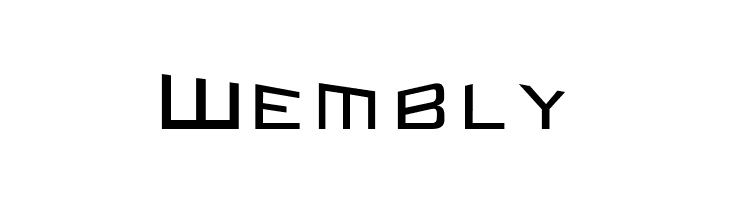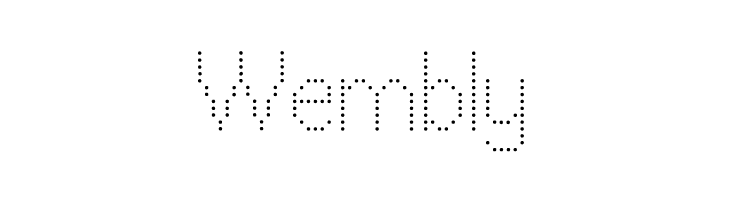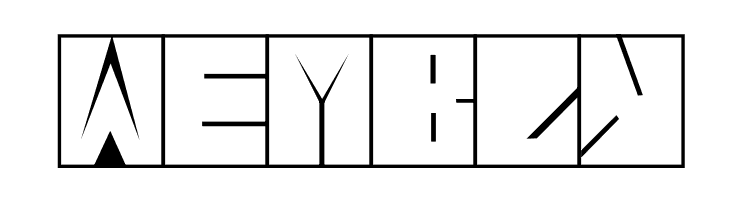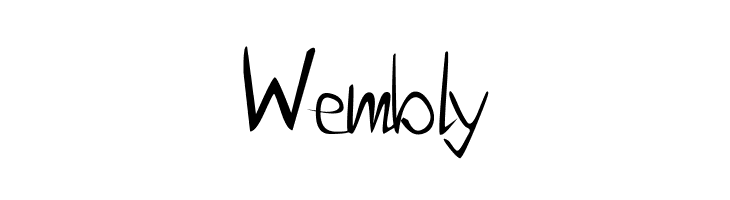
blzee Font
Font by Dennis van Schajik - www.zopp.nl
A bold, handwritten font with an energetic and casual style.
LL_Dot Font
A modern, dotted font with geometric precision and playful style.
Blaise Font
A geometric, angular font with a futuristic and mechanical style.
Blaise-1-1 Font
A geometric and abstract font with sharp angles and minimalistic strokes.
LLDot Font
Markus Schröppel - www.mschroeppel.de/
A modern, dotted font with a geometric and digital aesthetic.
Blaise Gothic Regular Font
A modern, angular font with a futuristic, tech-inspired design.
BlaiseHand 2.0 Font
4Logoz - formerly 4logoz.cjb.net
A dynamic handwritten font with playful, expressive strokes.